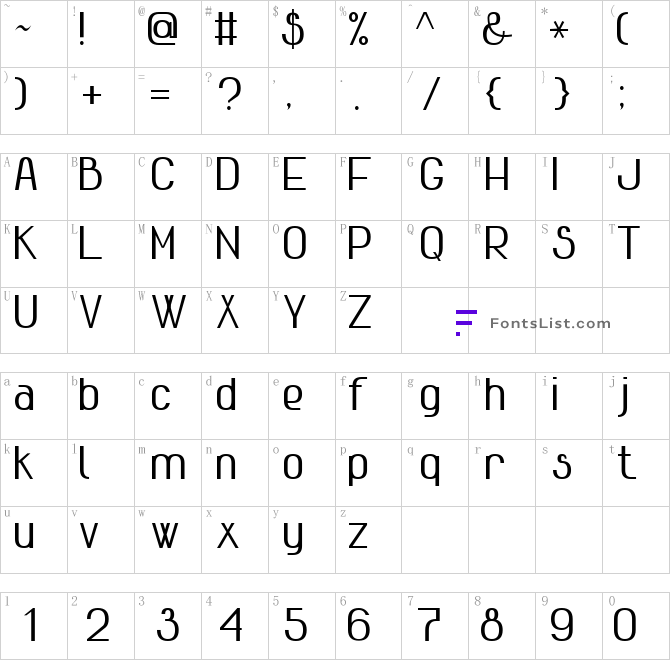
- Font Name:Advanced Sans Serif 7
Advanced-Sans-Serif-7-Bold.ttf is a very beautiful artistic font, Advanced-Sans-Serif-7-Bold.ttf is widely used in the design and printing of various books and pictures,Advanced-Sans-Serif-7-Bold.ttf has a strong visual impact,Advanced-Sans-Serif-7-Bold.ttf is a commonly used font in newspapers, magazines and books, and is used in posters, e-commerce Poster design, store design, logo design, font design and other fields.Advanced-Sans-Serif-7-Bold.